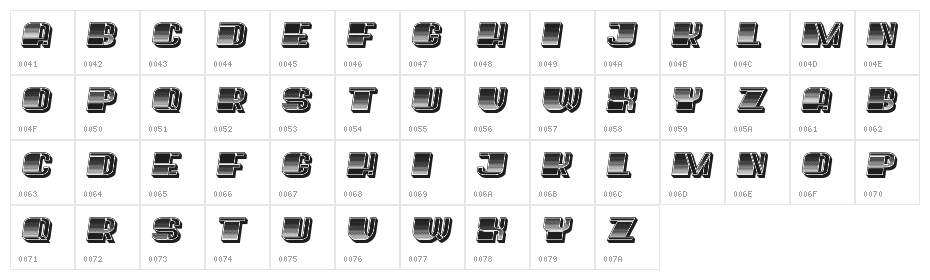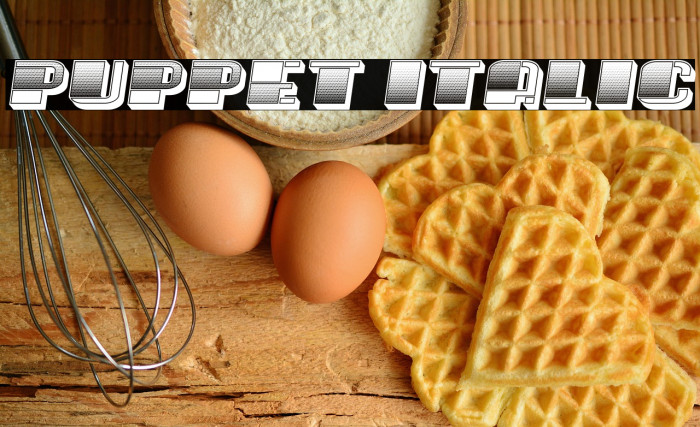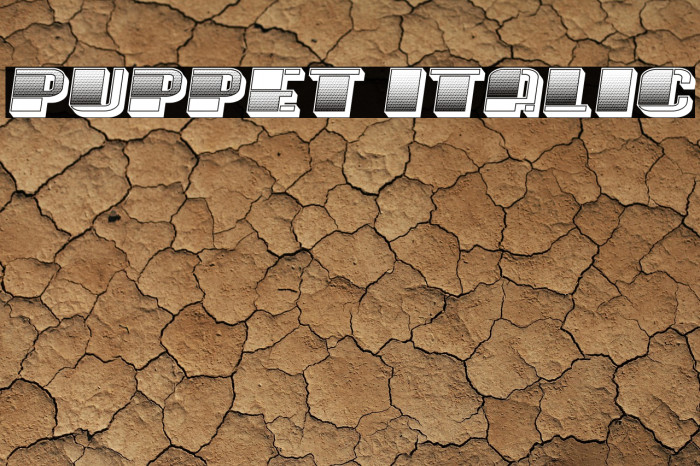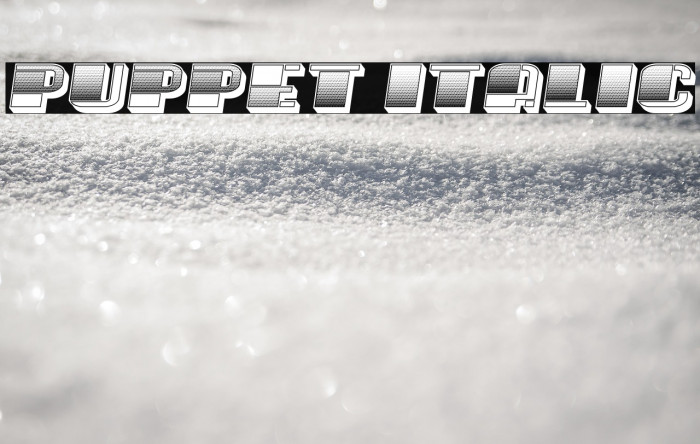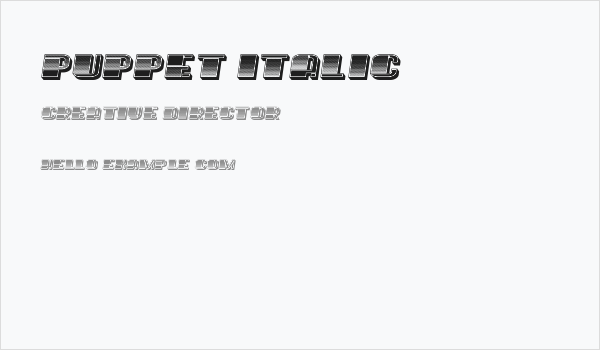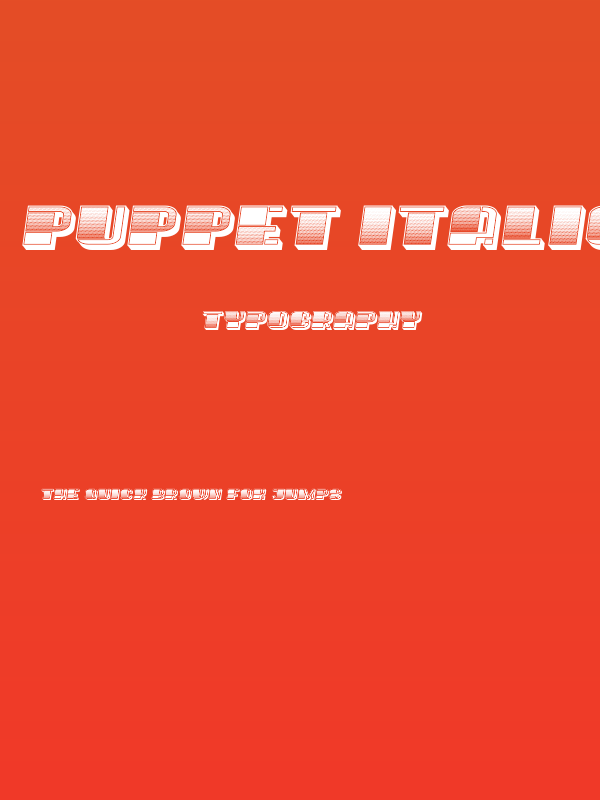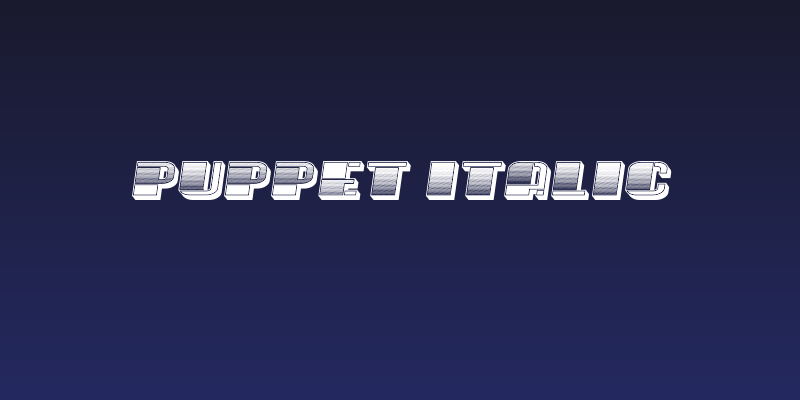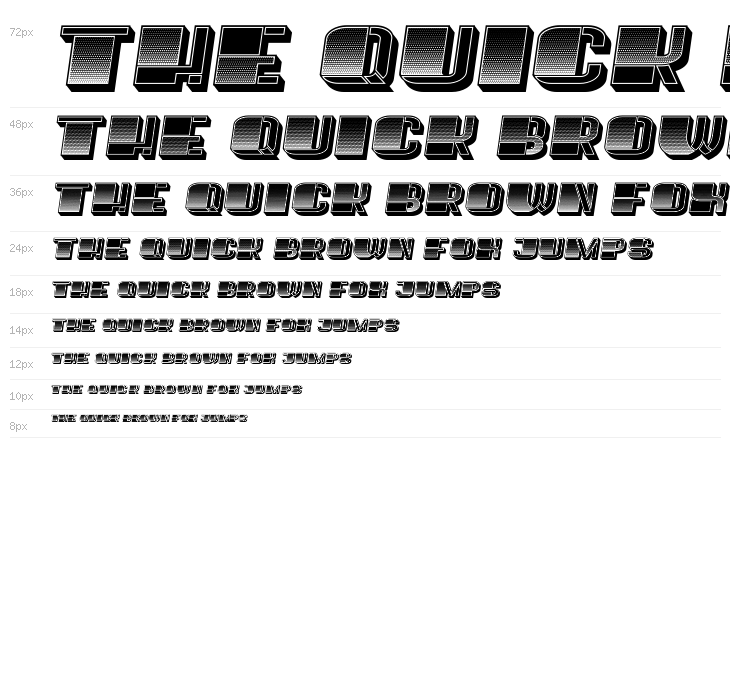
Puppet Italic Font
Puppet Italic Description
This font features a bold, three-dimensional style with a distinct italic slant. Each character is designed with a shadow effect that gives it a sense of depth and movement. The strokes are thick and consistent, with a striped pattern inside each letter that adds texture and visual interest. The overall appearance is dynamic and eye-catching, making it suitable for attention-grabbing designs. The uppercase letters are uniform in height, and the spacing between characters is tight, enhancing the compact and cohesive look of the text.
| Proposed Projects | Ideal for posters, logos, headlines, and any design requiring a bold, dynamic aesthetic. |